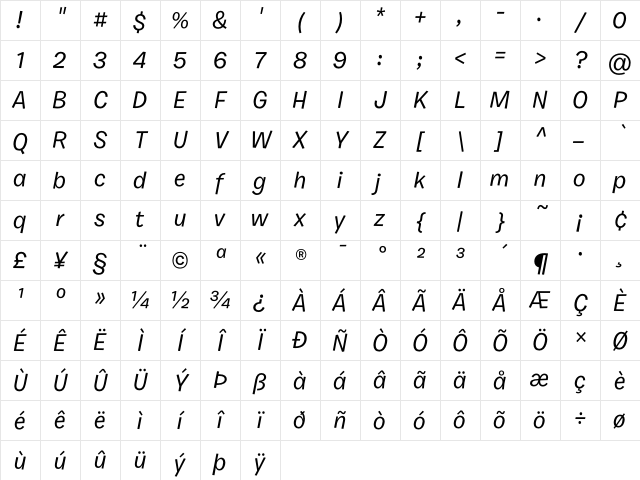
Burbank Small Medium Italic
Foundry: House Industries
Designer: Tal Leming
Burbank Small Family
Design Context for Burbank Small
Burbank Small is a composed and adaptable typeface that performs quietly and consistently across a wide range of design contexts. The slanted form adds forward momentum and visual energy.
Pro Tip: Use Burbank Small for emphasis, pull quotes, and subheadings where its slanted energy can add rhythm to the layout.